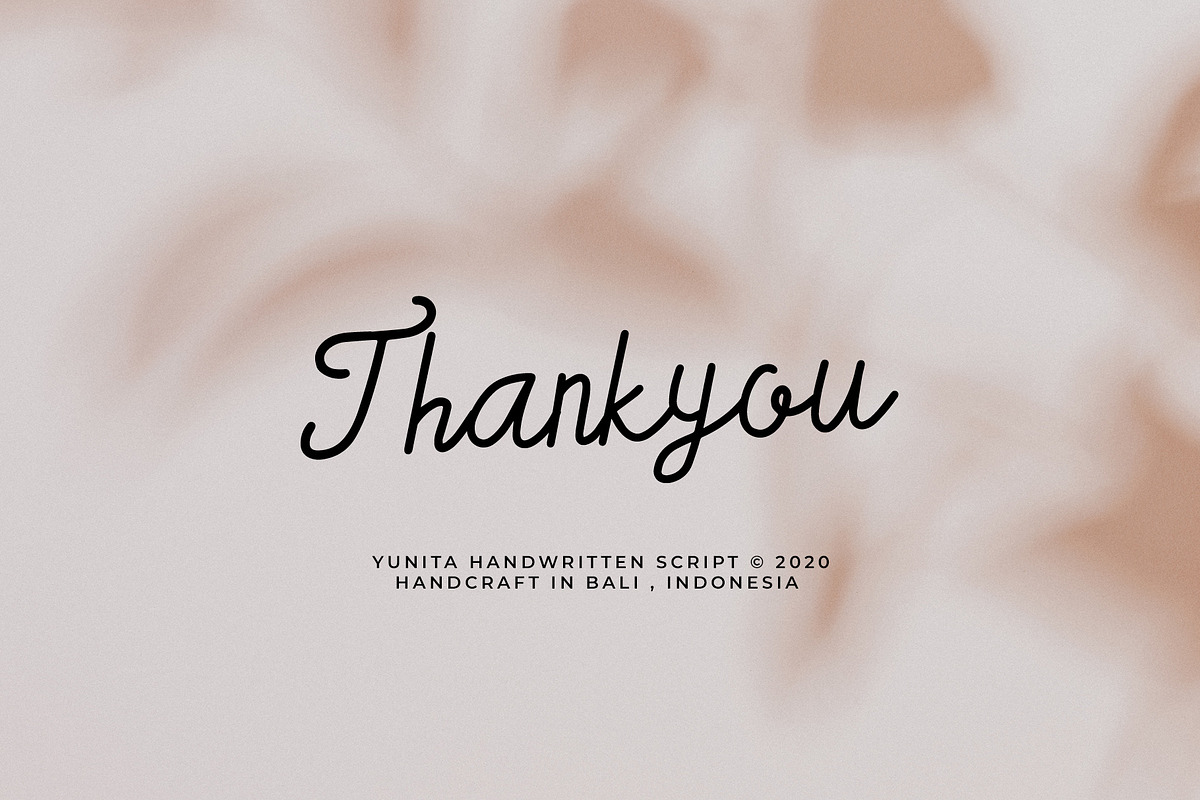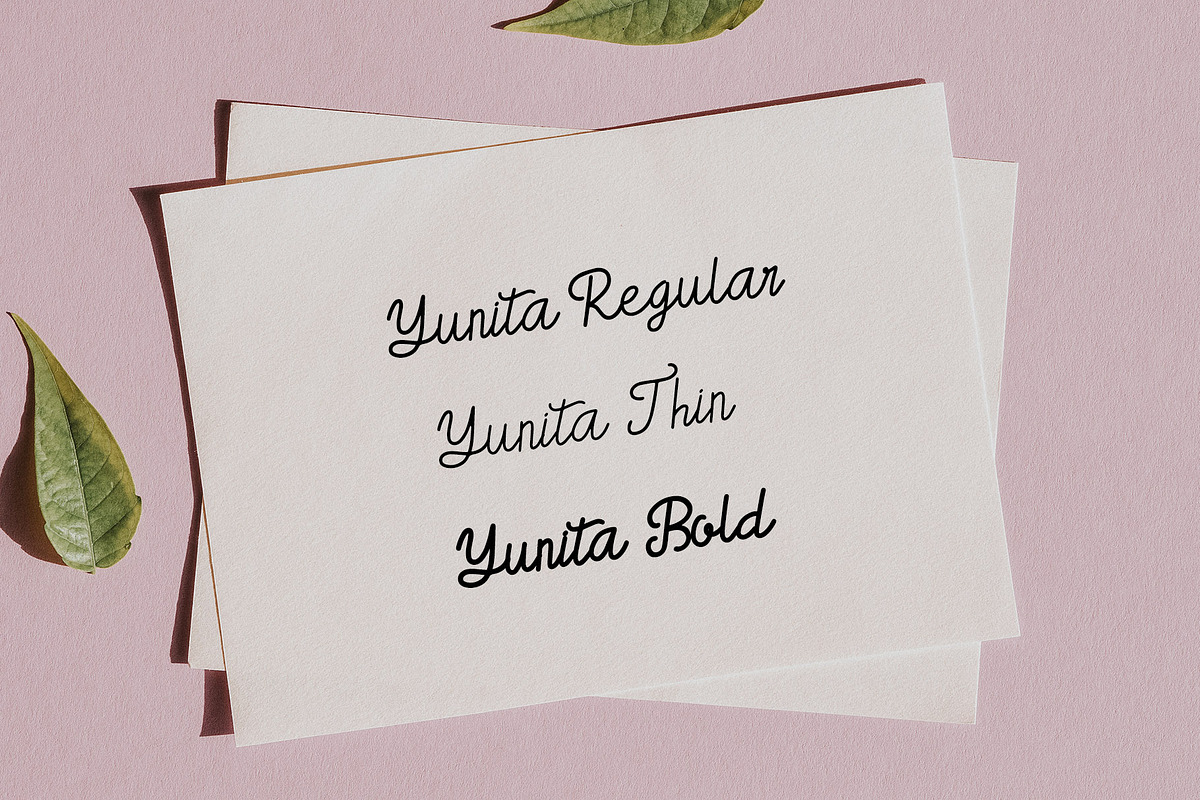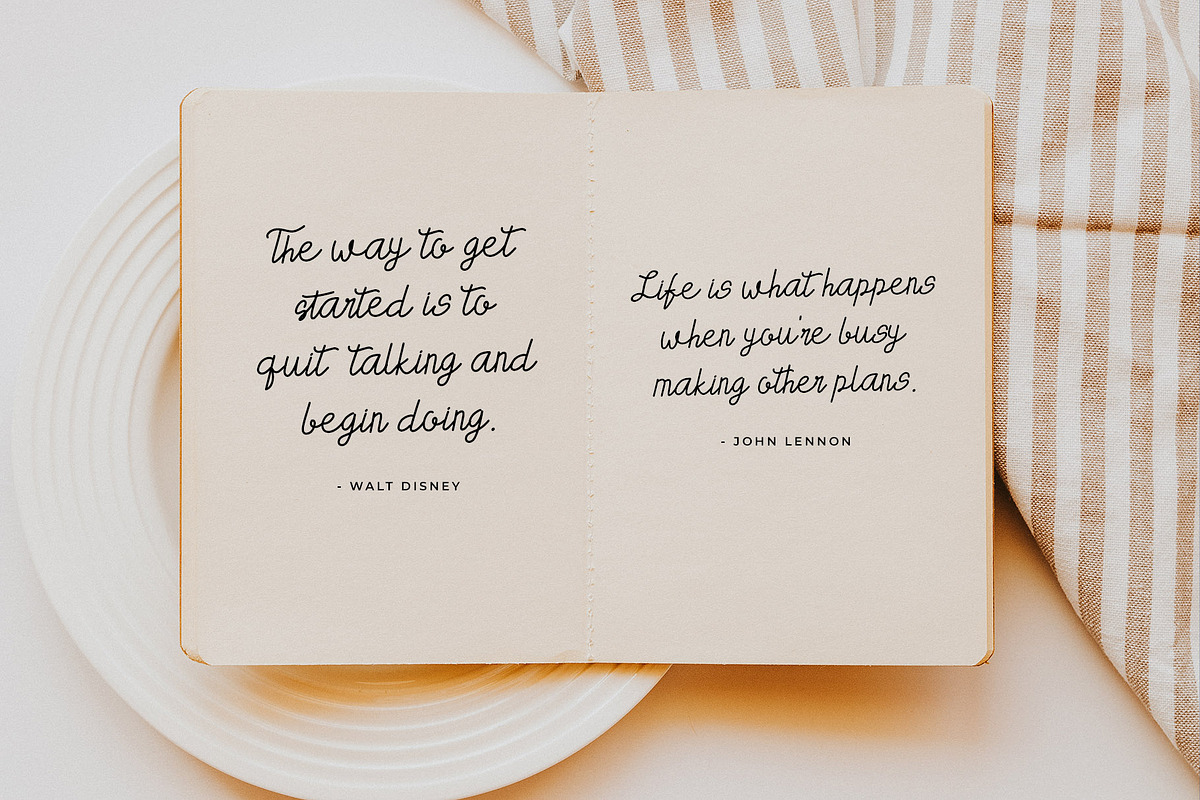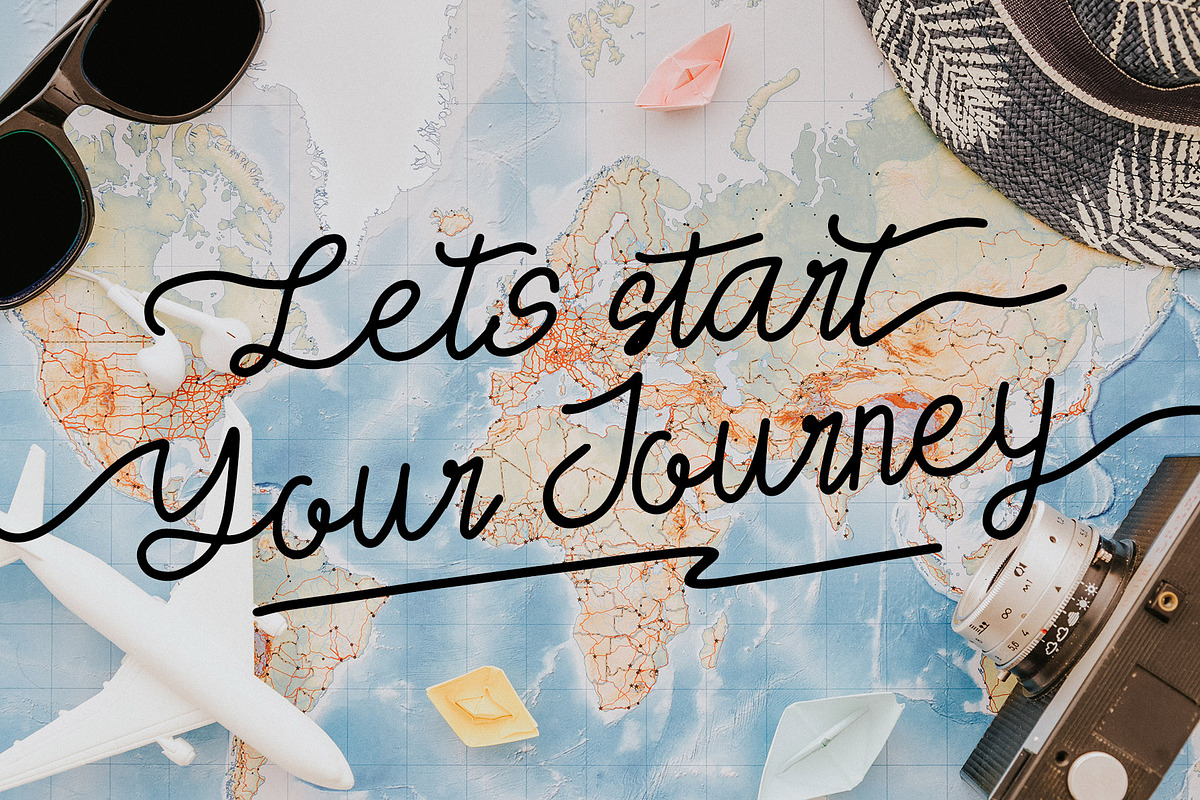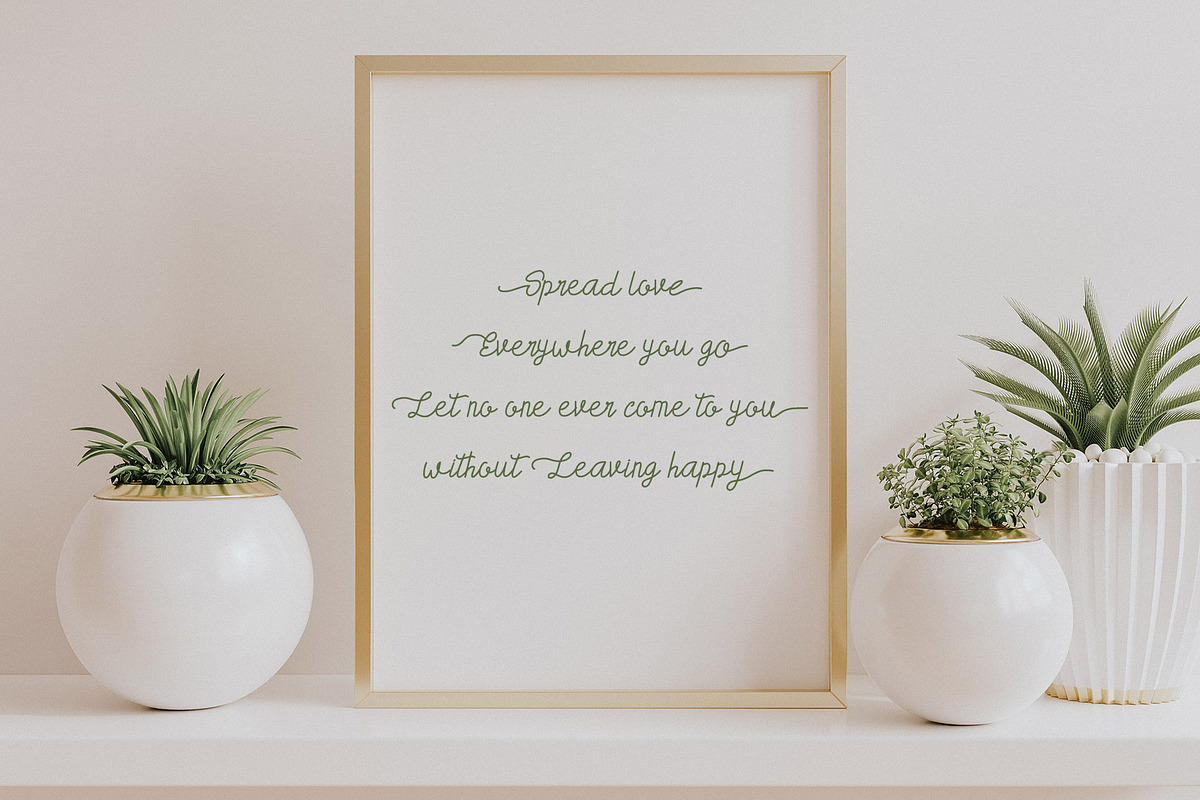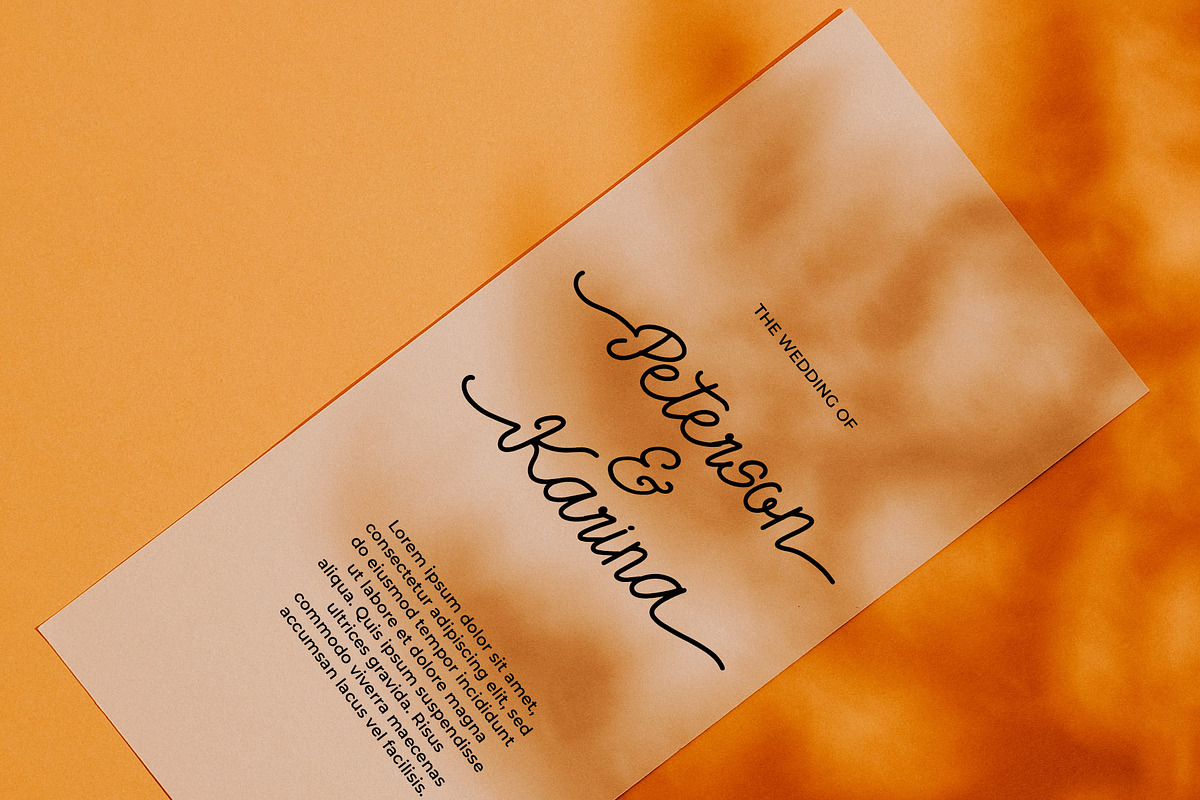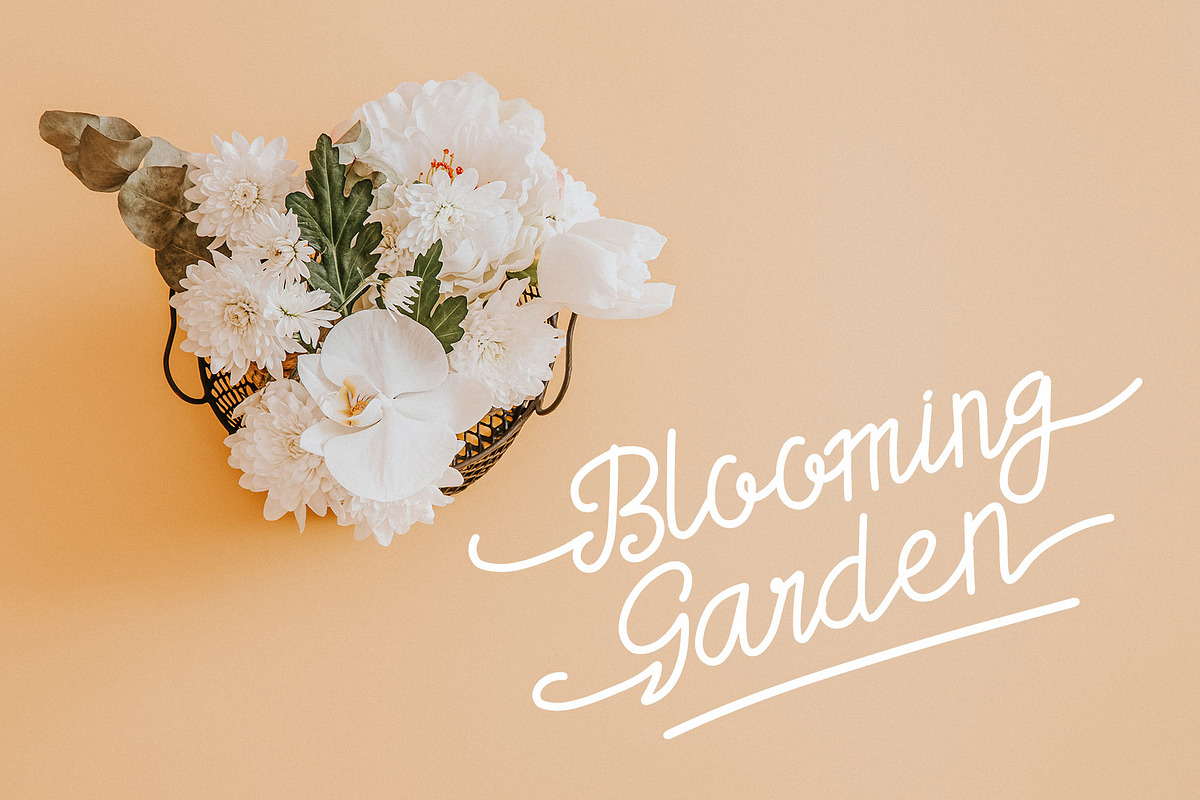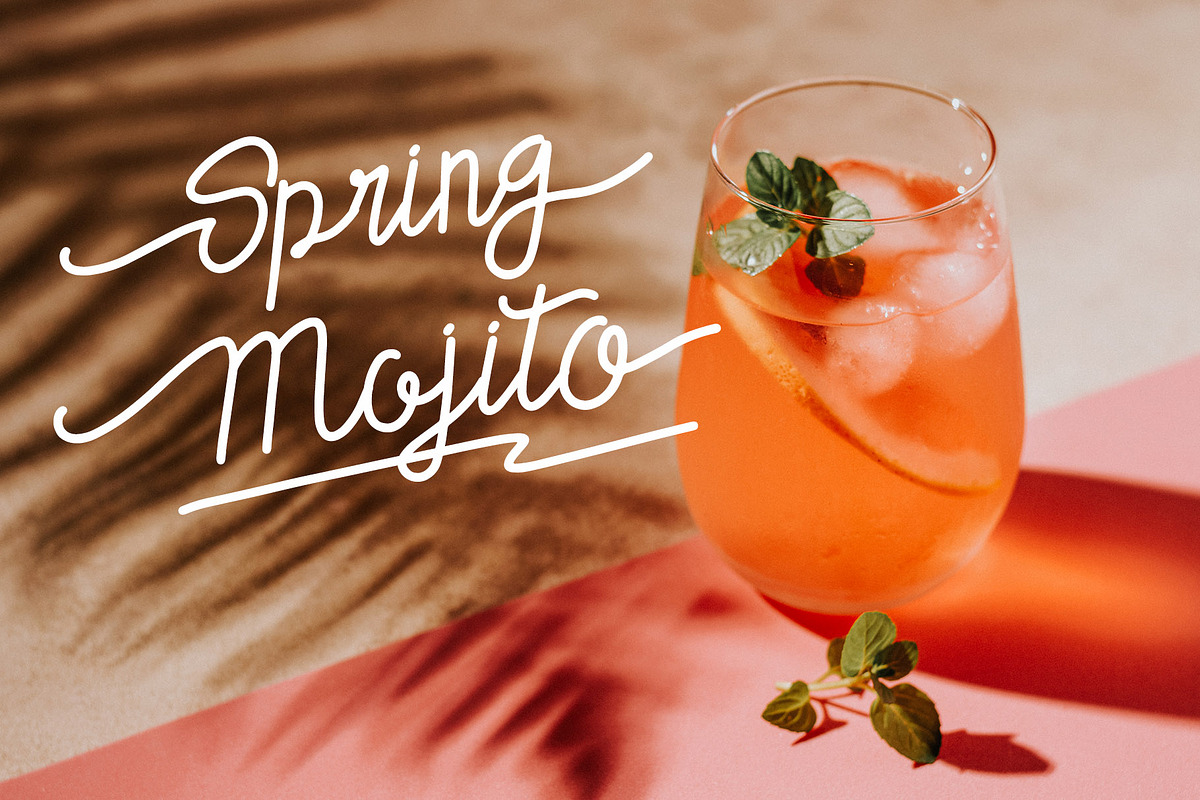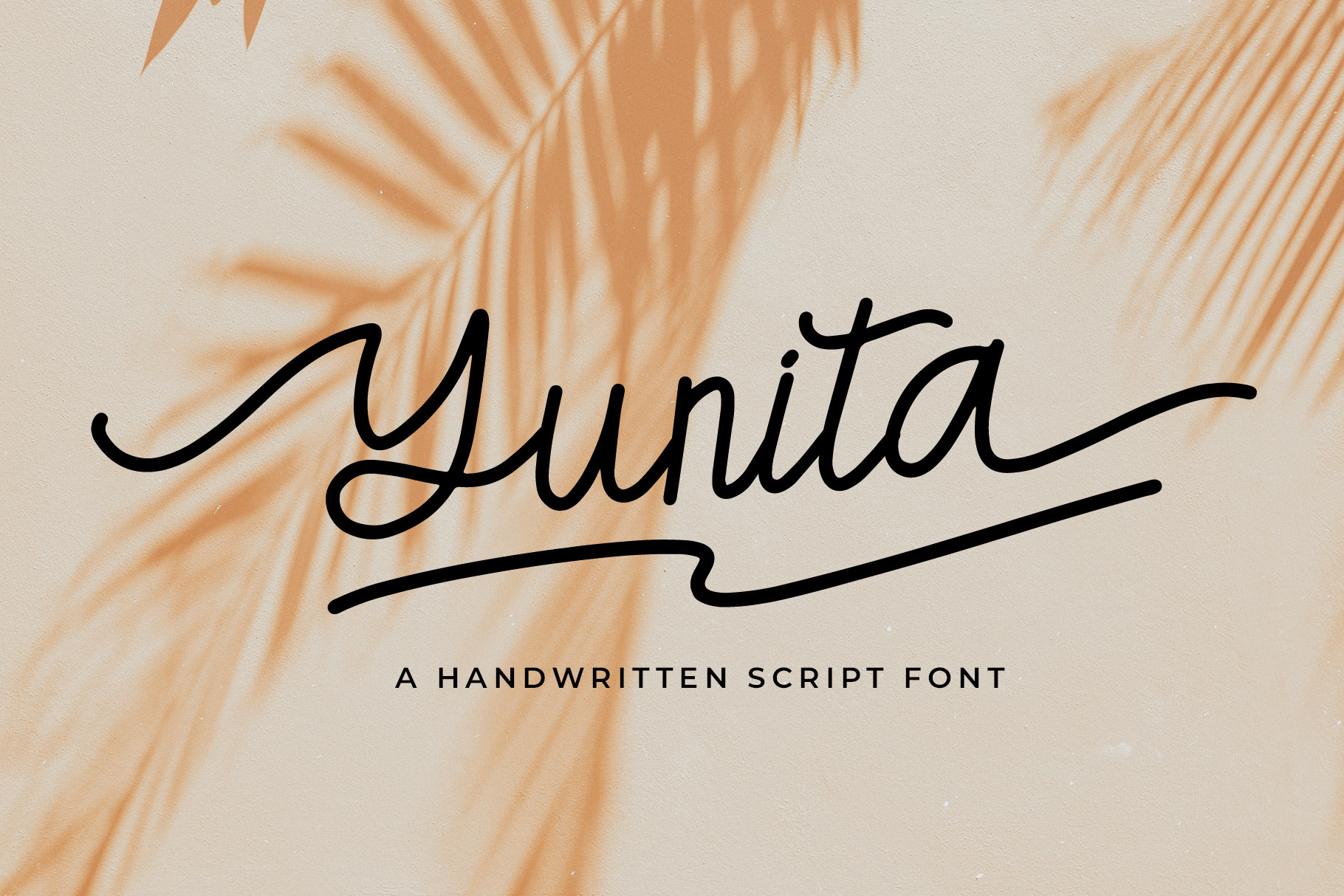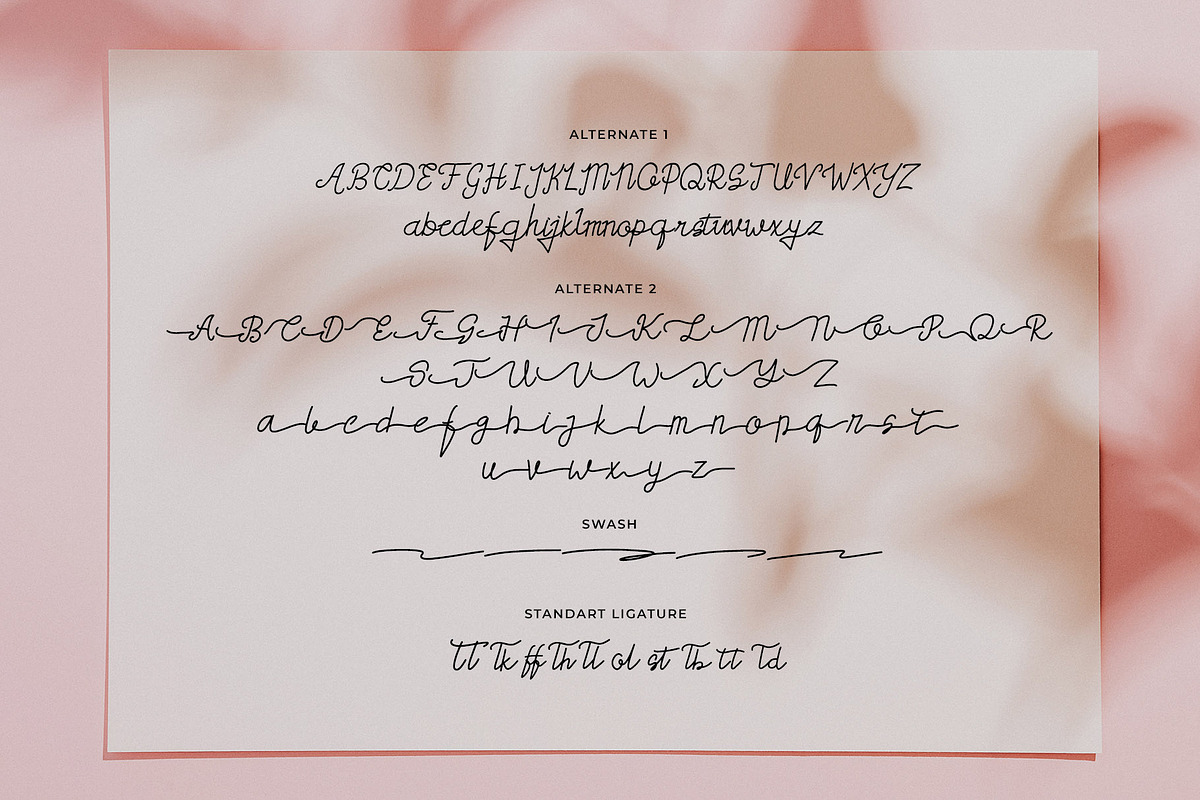
Yunita a Handwritten Script Font
I proudly introduce to you Yunita a handwritten script font, with feminim, elegant, bold, and handwriting look font. Can make it easier to convey the message in your design. Use for awesome display, Logo, labeling, clothing, wedding invitation, quotes, blog title, youtube video title, album covers, logos, and much more.
- 3 Family of font ( Regular, thin, and Bold )
Font Featured :
- Numbering
- Character
- Character Alternate 1
- Character Alternate 2
- Standart Ligature